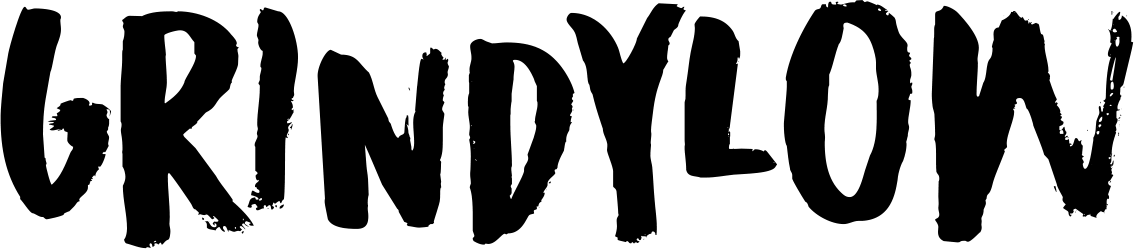
Grindylow Font
The special font is a reality here! Grindylow is a brush font that seems created by natural hand drawing. This font is suited when you want to give off organic or friendly vibes. You can do wonders with this font whatever you want to show handwriting effects. Use it in posters, branding, flyers, packaging, and apparel, and add beauty to them. Enjoy!